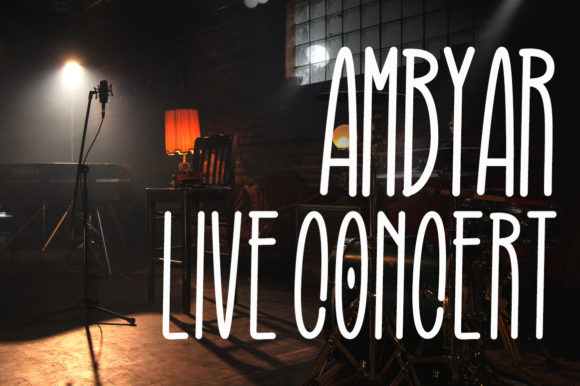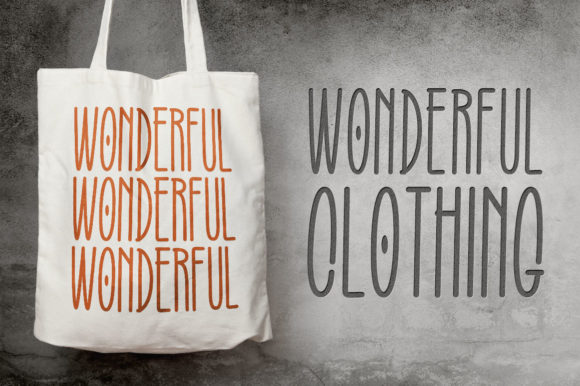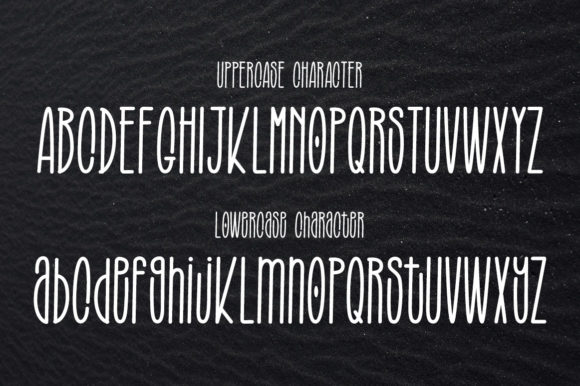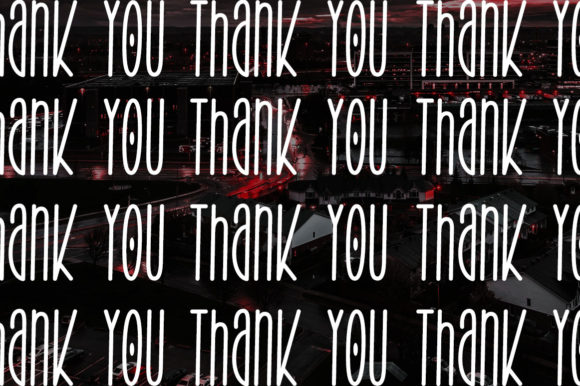
Introducing Garhento Font: Elevate Your Designs with a Bold and Modern Style
Are you tired of using the same old fonts in your designs? Look no further! Garhento Font is here to revolutionize the way you create. This unique display font is specifically designed to give your designs a bold and modern style that will set them apart from the rest. In this article, we’ll dive into the features and benefits of Garhento Font, and explore how it can elevate your designs to the next level.
What is Garhento Font?
Garhento Font is a distinctive display font that is perfect for designers and crafters looking to add a touch of modernity to their work. Its unique design makes it stand out from other fonts, and its versatility ensures that it can be used in a wide range of applications, from branding and advertising to packaging and digital media.
Key Features of Garhento Font
- Bold and Modern Style: Garhento Font boasts a bold and modern style that is sure to grab attention. Its sleek lines and contemporary design make it perfect for designs that require a fresh and modern look.
- Unique Design: Unlike other fonts, Garhento Font has a unique design that sets it apart from the rest. Its distinctive features make it easily recognizable, and its versatility ensures that it can be used in a variety of contexts.
- Highly Versatile: Garhento Font is highly versatile, making it suitable for use in a wide range of applications, from digital media to print materials.
- Easily Readable: Despite its bold and modern style, Garhento Font is easily readable, making it perfect for designs that require a font that is both stylish and legible.
Benefits of Using Garhento Font
So, why should you choose Garhento Font for your designs? Here are just a few benefits of using this unique display font:
- Stand Out from the Crowd: With Garhento Font, you can create designs that stand out from the crowd. Its bold and modern style ensures that your designs will grab attention and leave a lasting impression.
- Enhance Your Brand: If you’re looking to enhance your brand, Garhento Font is a great choice. Its unique design and versatility make it perfect for use in branding and advertising materials.
- Save Time: With Garhento Font, you can save time and effort in creating your designs. Its easily readable and versatile design makes it perfect for use in a wide range of applications.
How to Use Garhento Font
Using Garhento Font is easy! Here are a few tips to get you started:
- Pair it with Other Fonts: Garhento Font pairs well with other fonts, making it easy to create visually appealing designs. Try pairing it with a sans-serif font for a modern and sleek look.
- Use it in Headings: Garhento Font is perfect for use in headings and titles. Its bold and modern style makes it easy to grab attention and draw the eye.
- Experiment with Colors: Garhento Font looks great in a variety of colors. Experiment with different colors and combinations to find the one that works best for your design.
| Font Name | Garhento Font |
| Author | Kotak Kuning Studio |
In conclusion, Garhento Font is a unique display font that is perfect for designers and crafters looking to add a bold and modern style to their work. Its versatility, readability, and distinctive design make it a great choice for a wide range of applications. Whether you’re looking to enhance your brand, create eye-catching designs, or simply try something new, Garhento Font is a great choice. So why wait? Download Garhento Font today and take your designs to the next level!